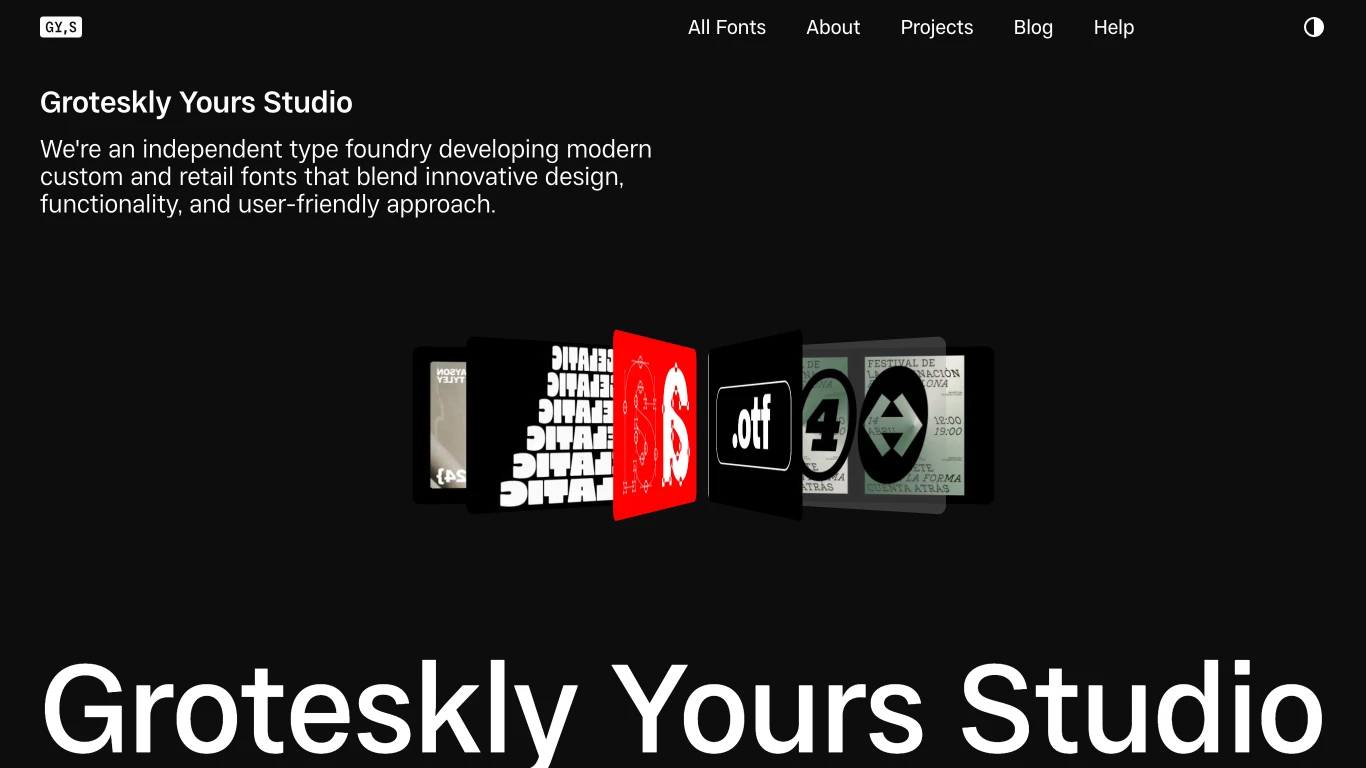
Groteskly Yours Studio
Serbia
2019
​Groteskly Yours Studio is an independent type foundry founded in 2019 by Eugene Tantsurin and Anna Remm. The studio specializes in creating modern, functional typefaces that push the boundaries of traditional typography. Notable releases include the Resist type family, comprising Resist Display, Resist Text, and Resist Mono, known for balancing irregularity with uniformity. Other significant typefaces are Rothek, a minimalist sans-serif, and Refrankt, an 18-style sans-serif. The studio offers both retail and custom typeface services, emphasizing versatility and reliability in their designs.